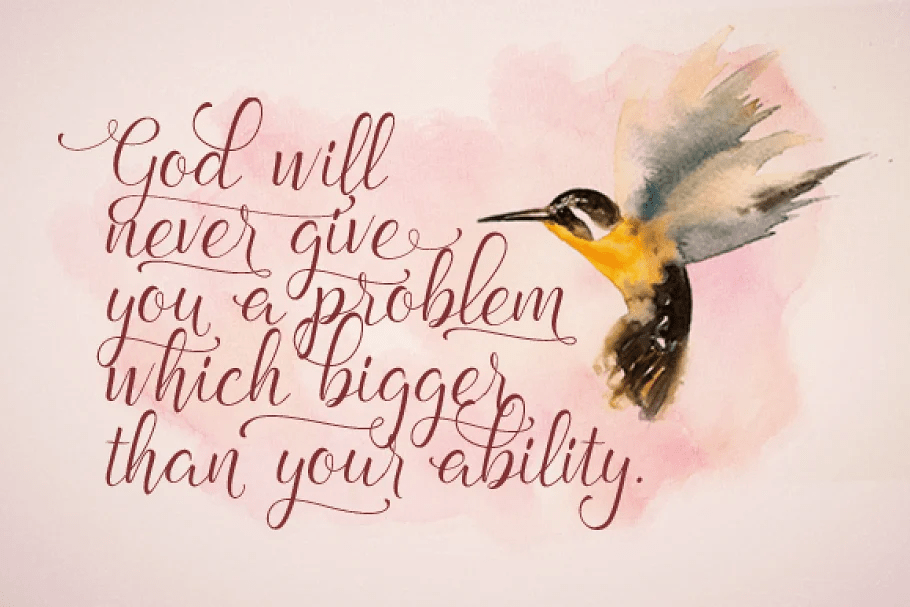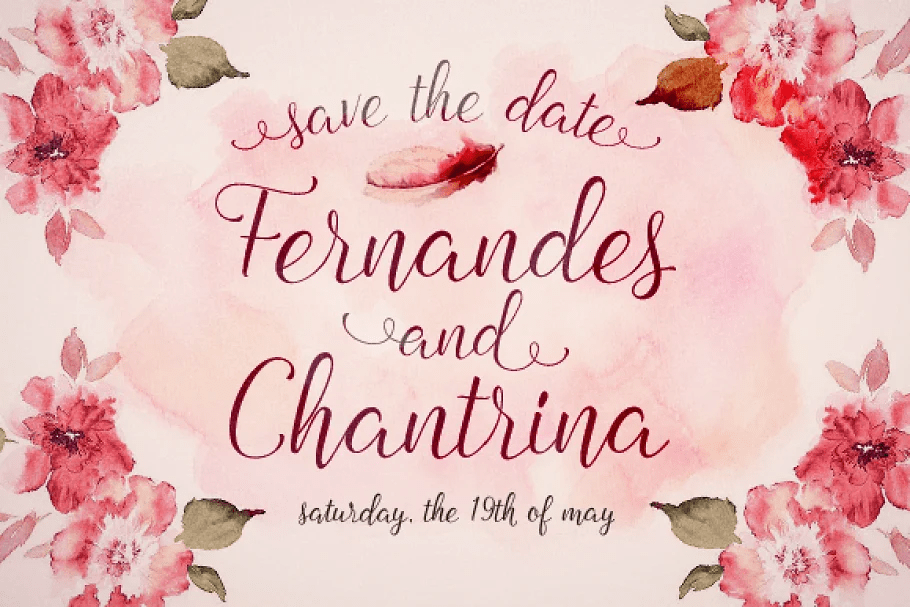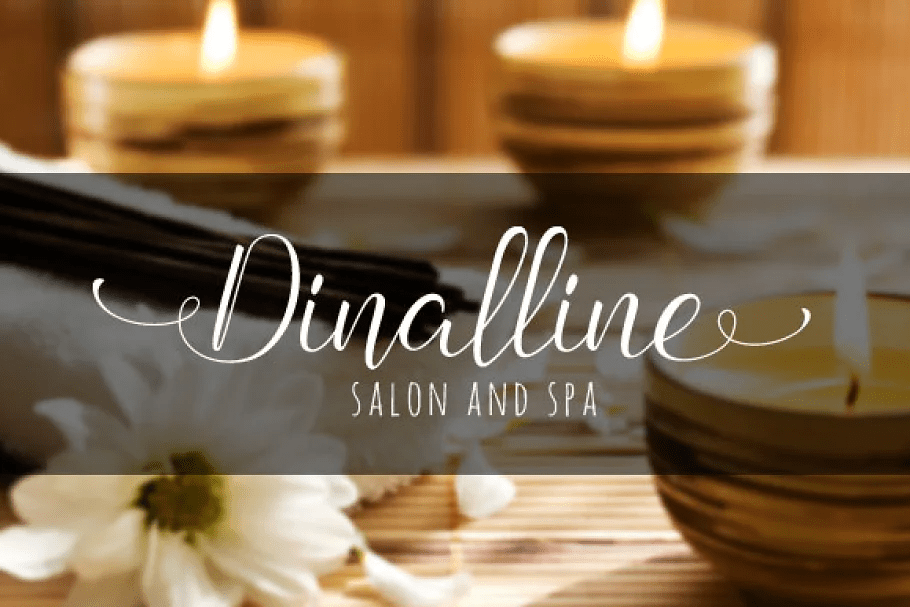
About Angelline
Angelline Script is a stylish handwritten font based on copperplate calligraphy combined with a contemporary dancing baseline, for a classic and elegant touch. Designed with a real brush and digitized, it has 348 glyphs. Supports contextual, ligatures,…